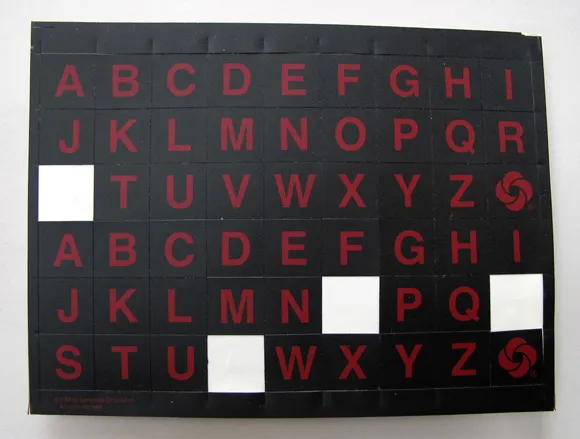
Found Type: Adhesive Helvetica
Adhesive Helvetica
Hidden within a large collection of rub down and transfer type we acquired last fall was this set of adhesive Helvetica caps and matching Samsonite logos. The stuffy palette says 1984 (as does the fine print on the bottom) but we can only guess at their use. We assume the letters’ original owner, an interior designer by trade, first personalized her luggage (her initials were VR) and then… well we’re not sure. The destination of S & O will have to remain a mystery.